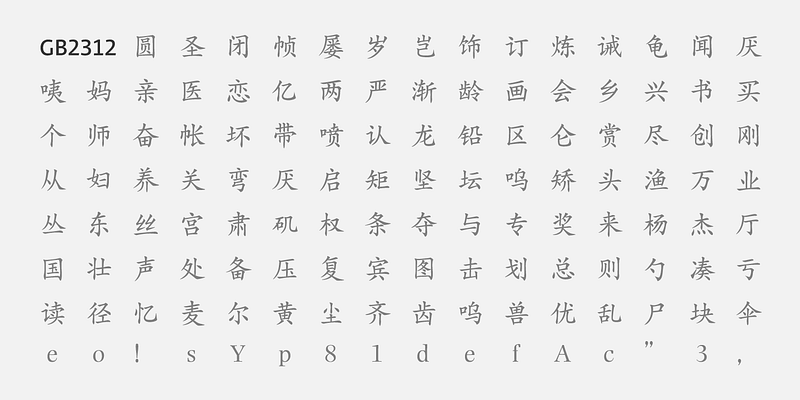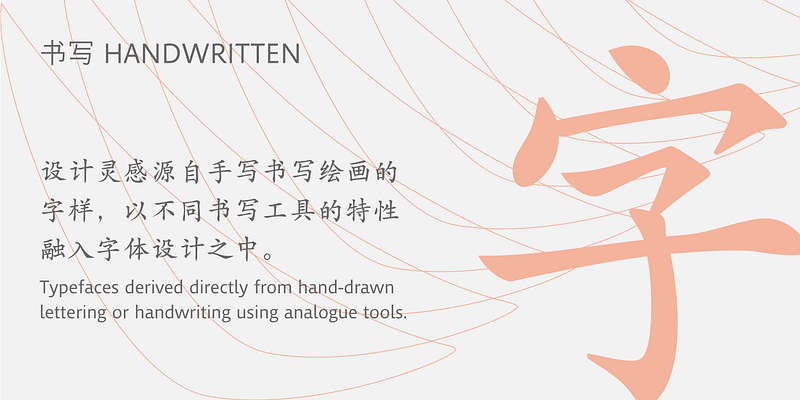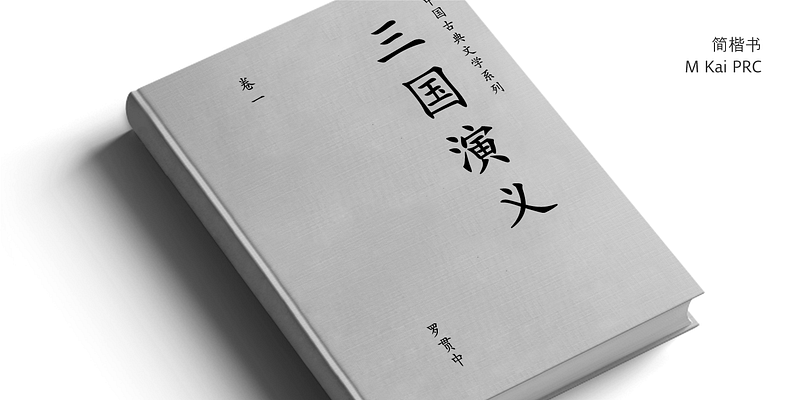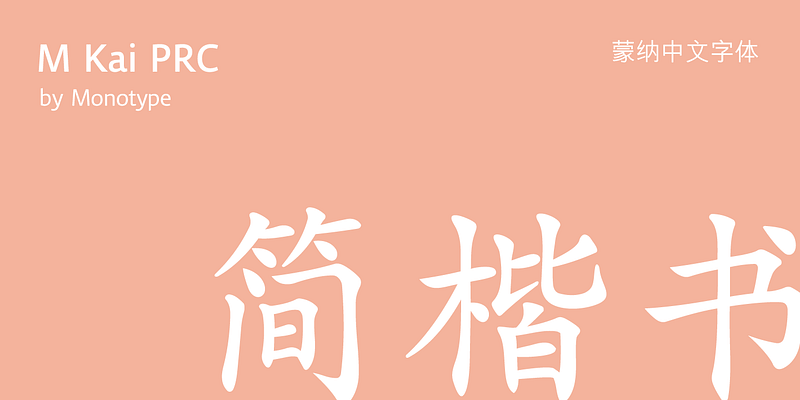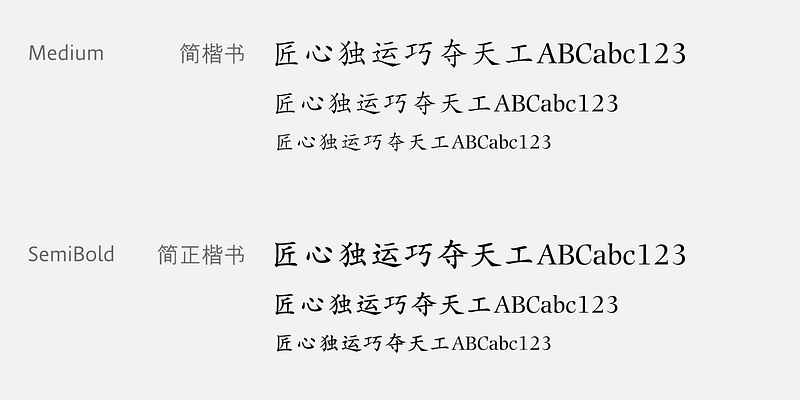
M Kai is a design inspired by the popular Kaiti developed in contemporary China.MKai adopts many features of Kaishu, one of the many Chinese writing scripts and calligraphic style. Yet writing style and constructions have been well-unified to meet quality as typeface. Its strokes has relatively heavier stroke beginning and finishing, as well as thinner middle part. It is catered for fine print with little conglutination. Its medium weight makes it more visible at distance and pretty versatile in use. Zhonggong are tightly built with ample character spacing for good individual character recognition.It is best suited for formal body text, set upright (non-slanted), non-condensed.